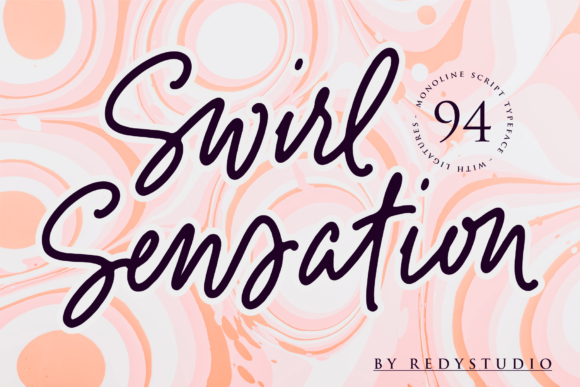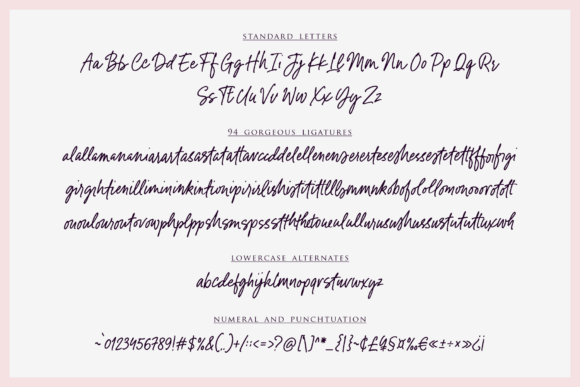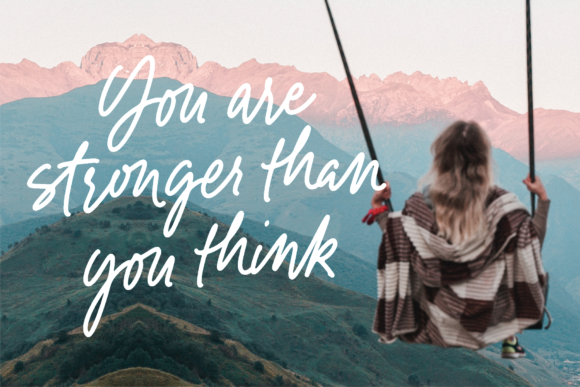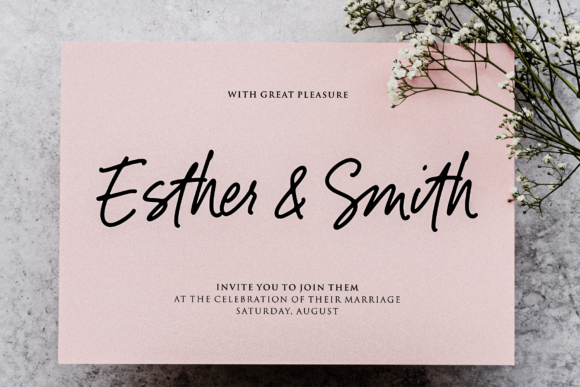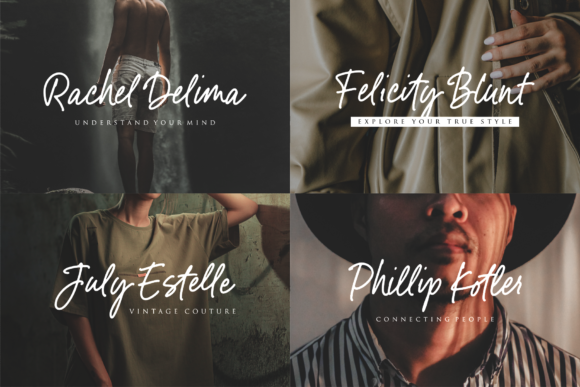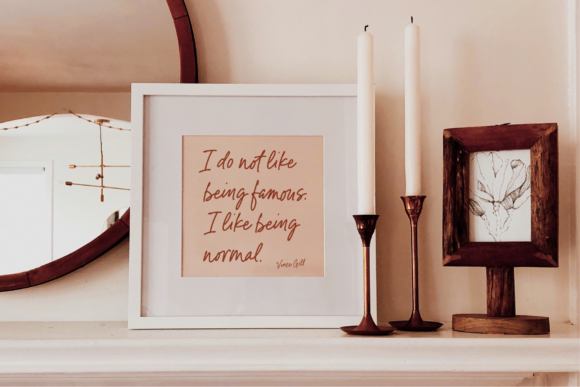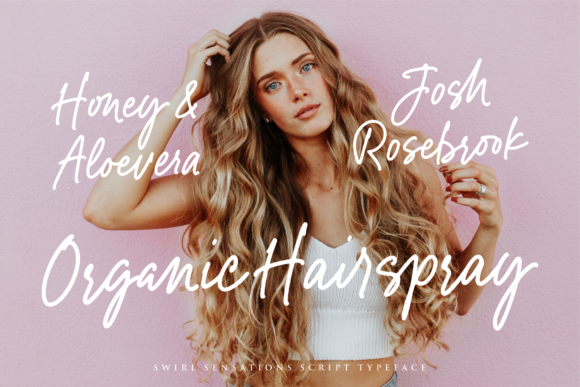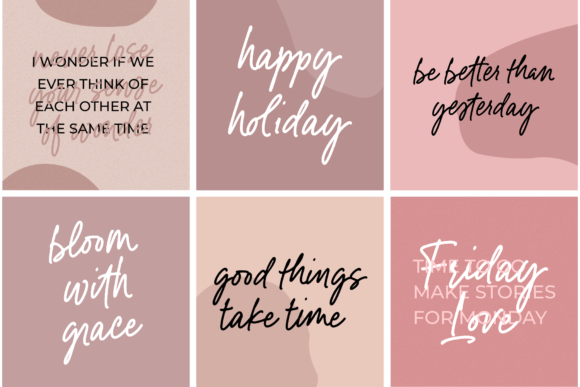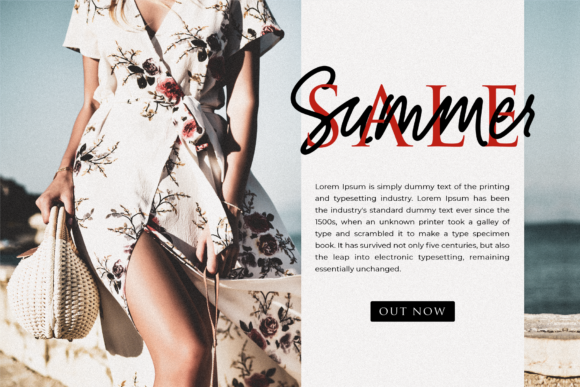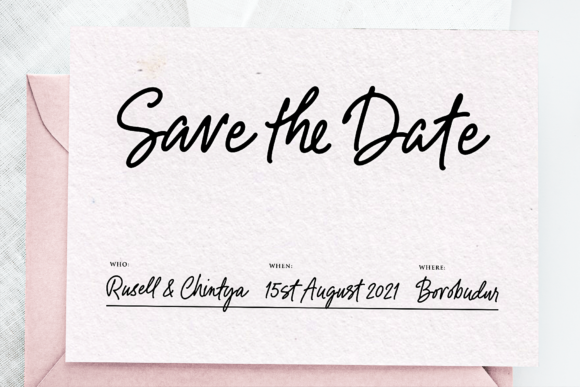
Swirl Sensations Font
About Swirl Sensations Font
Swirl Sensations is a relaxed, casual and swirly handwritten font. It is PUA encoded which means you can access all of the glyphs and swashes with ease!